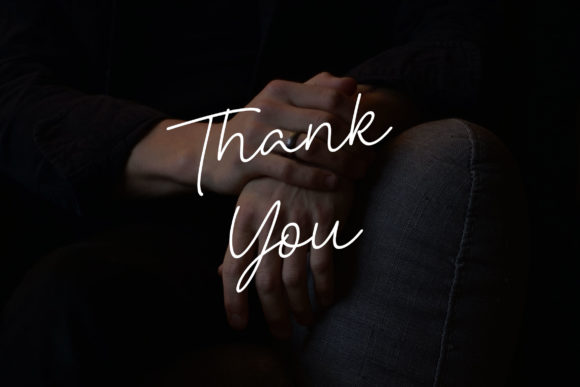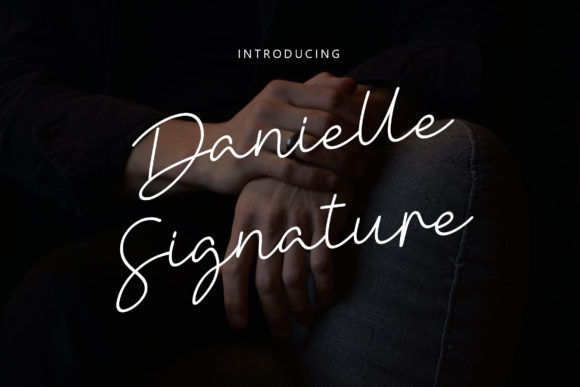
Introducing Danielle Signature Font: Elevate Your Designs with Elegance and Modernity
Are you looking for a font that exudes luxury, sophistication, and modernity? Look no further than the Danielle Signature Font. This stunning script font is designed to add a touch of elegance to your projects, making it perfect for designers and crafters who want to create something truly special.
What Makes Danielle Signature Font Stand Out?
Danielle Signature Font is a beautifully crafted script font that boasts a unique blend of classic and modern elements. Its elegant strokes, precise lettering, and flowing connections make it perfect for creating sophisticated designs that demand attention. Whether you’re working on a logo, magazine, branding project, or signature, this font is sure to impress.
Key Features of Danielle Signature Font
• Elegant and Modern Design: Danielle Signature Font features a sleek and contemporary design that will add a touch of luxury to your projects.
• Script Font Style: This beautiful script font is perfect for creating flowing, connected text that’s sure to capture attention.
• Highly Versatile: Use Danielle Signature Font for a wide range of projects, including logos, magazines, branding, signatures, and more.
How to Use Danielle Signature Font in Your Designs
Danielle Signature Font is incredibly versatile, making it perfect for a wide range of design projects. Here are just a few ideas to get you started:
• Logo Design: Create a stunning logo that showcases your brand’s personality and style with Danielle Signature Font.
• Magazine and Editorial Design: Add a touch of elegance to your magazine or editorial design with this beautiful script font.
• Branding and Packaging: Use Danielle Signature Font to create a cohesive brand identity that exudes luxury and sophistication.
• Signatures and Stationery: Add a personal touch to your signatures and stationery with this beautiful script font.
Tips and Tricks for Getting the Most Out of Danielle Signature Font
To get the most out of Danielle Signature Font, here are a few tips and tricks to keep in mind:
• Experiment with Font Sizes: Danielle Signature Font looks great in a variety of font sizes, so don’t be afraid to experiment to find the perfect size for your project.
• Play with Color: This font looks stunning in a range of colors, so try experimenting with different hues to find the perfect match for your design.
• Combine with Other Fonts: Danielle Signature Font pairs beautifully with other fonts, so try combining it with a sans-serif font for added contrast.
Danielle Signature Font is a truly exceptional script font that’s sure to elevate your designs to the next level. With its elegant and modern design, versatility, and ease of use, this font is perfect for designers and crafters who want to create something truly special. So why wait? Download Danielle Signature Font today and start creating stunning designs that demand attention.
Whether you’re a seasoned designer or just starting out, Danielle Signature Font is a must-have addition to your font collection. So go ahead, get creative, and see what amazing designs you can create with this incredible script font.